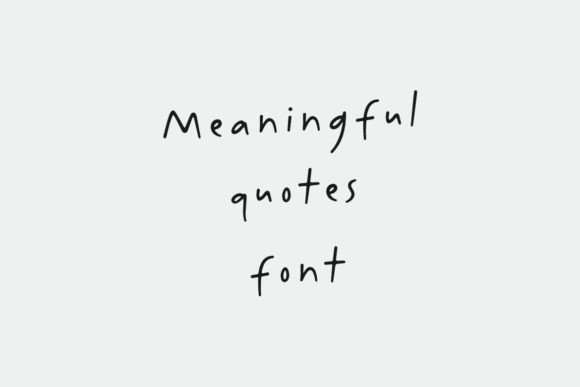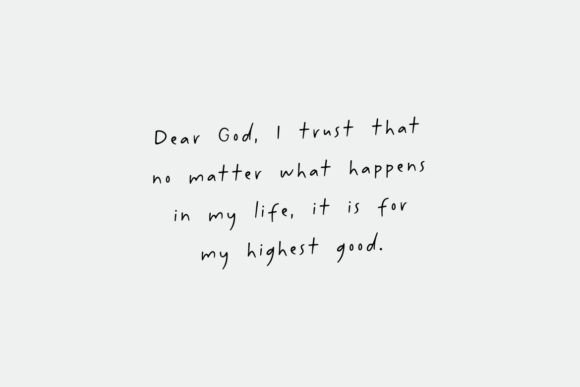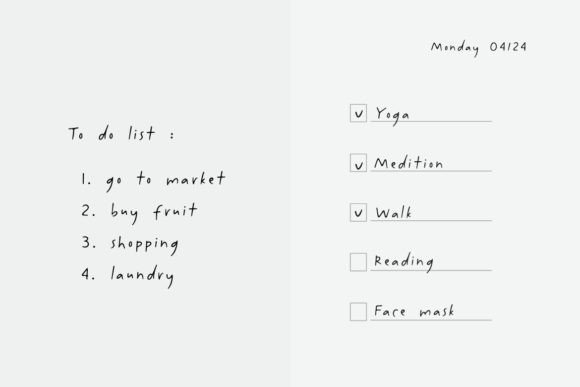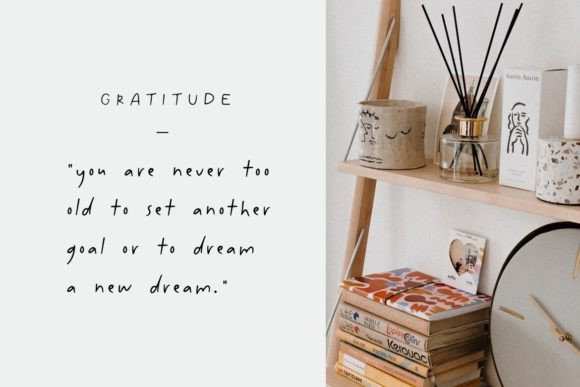
Meaningful Quotes Font
About the Meaningful Quotes Font
Meet Meaningful Quotes Font, a stunning font that brings a touch of elegance and professionalism to any design. Meaningful Font is a cute and modern handwritten font. This font is perfect for creating print templates like posters, branding, quotes, blog titles, fashion, invitations, greeting cards, business cards, clothing, stationery or anything else. Comes with a full uppercase, lowercase, numbers, punctuation and with extensive language support, it’s going to be a very usable addition to your project.
Its playful, yet modern feel makes it ideal for branding projects targeting a young, creative demographic, particularly those in fashion, lifestyle, or stationery. Use it effectively for headlines, short quotes, and logotypes. However, avoid using it for lengthy body text or UI elements; its handwritten nature compromises readability in smaller sizes or extended passages.
Meaningful Quotes Font pairs well with clean sans-serif fonts like Open Sans for a balanced contrast, or with a more geometric sans-serif like Montserrat for a contemporary feel. A classic serif like Garamond could provide elegant sophistication if a touch of formality is needed.
The font’s overall personality is best described as friendly and approachable, with a touch of modern chic. This makes it unsuitable for projects requiring a serious or highly formal tone.
Meaningful Quotes Font Usage Examples
Meaningful Quotes Font Example